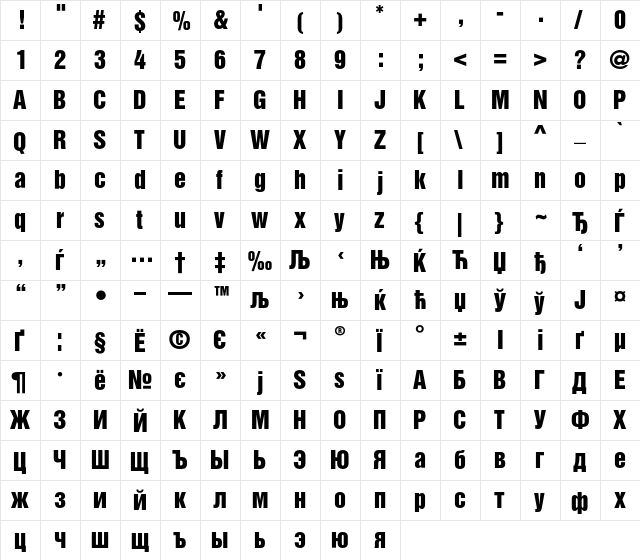
Helvetica Inserat Cyrillic Upright
Design Context for Helvetica Inserat Cyrillic Typeface
Helvetica Inserat Cyrillic takes a measured approach to typography — its balanced proportions and neutral character make it a reliable workhorse for both digital and print work.